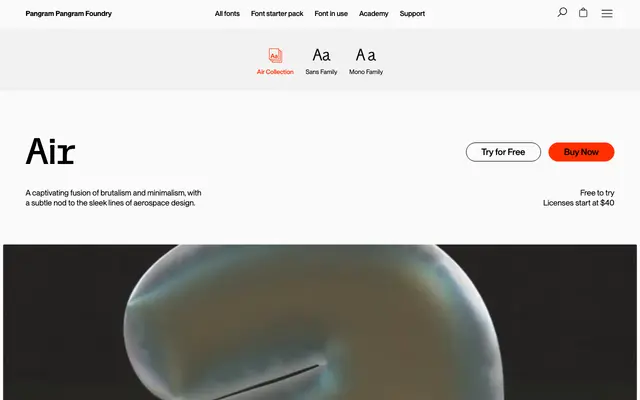
Air
A grotesque sans in 36 styles originally designed by Mat Desjardins and expanded by Caio Kondo, spanning proportional and monospaced cuts with variable axes for weight, italic and mono.
Originally designed by Mat Desjardins and expanded by Caio Kondo of Inari Type, Air spans two subfamilies — proportional and monospaced — each offering nine upright weights from Thin to Black with matching italics and a variable font that unites all axes in a single file. The design takes visual cues from brutalism, minimalism and aerospace detailing, with a large character set of 656 glyphs including alternate characters, punctuation and arrows. Both cuts share the same weight range, making the family well-suited to mixed-setting work where editorial and code or tabular contexts need to coexist.
Pangram classify it as Grotesk and Sans Serif; the design draws on brutalist and minimalist influences with aerospace-inspired geometry, sitting firmly in the grotesque sans tradition.